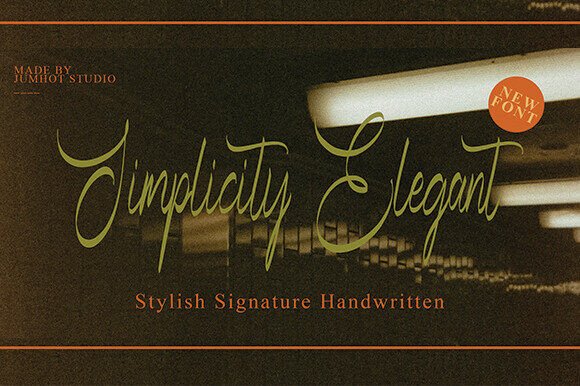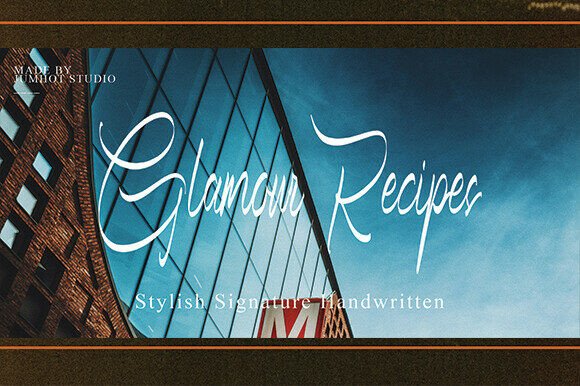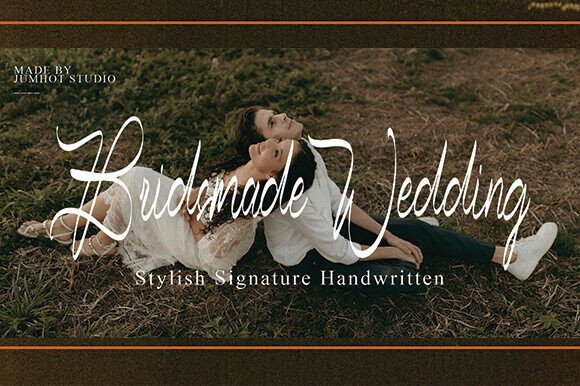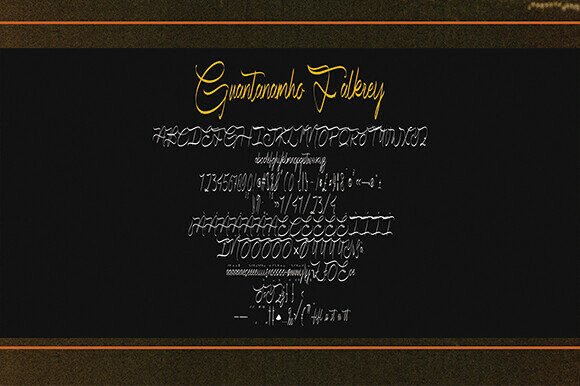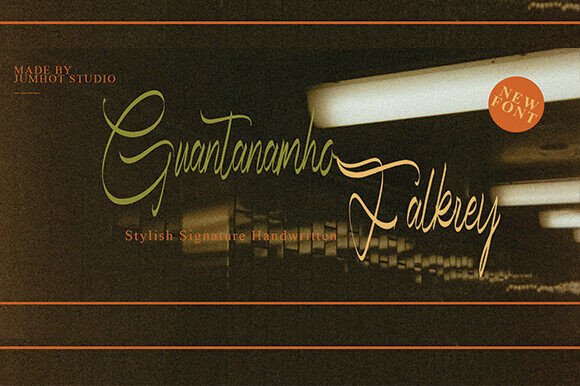
Introducing Guantanamho Falkrey Font: Elevate Your Designs with Elegance and Sophistication
In the world of typography, a well-crafted font can make all the difference in elevating a design from ordinary to extraordinary. Guantanamho Falkrey Font is a stylish script font that embodies the perfect blend of elegance and contemporary charm. With its graceful strokes, fluid curves, and meticulously designed letterforms, this font is sure to capture the hearts of designers and crafters alike.
The Beauty of Hand-Drawn Calligraphy with a Modern Twist
Guantanamho Falkrey Font draws inspiration from the art of hand-drawn calligraphy, but with a modern twist that sets it apart from traditional script fonts. The font’s carefully crafted letterforms showcase a natural flow and polished details that evoke a sense of sophistication and refinement. Whether you’re designing a logo, invitation, packaging, or social media graphics, Guantanamho Falkrey Font is the perfect choice to add a touch of elegance and glamour to your creations.
Key Features of Guantanamho Falkrey Font
- Stylish Script Font: Guantanamho Falkrey Font boasts a stylish script design that exudes elegance and contemporary charm.
- Graceful Strokes and Fluid Curves: The font features smooth, flowing strokes and curves that give it a natural and organic feel.
- Carefully Crafted Letterforms: Each letterform has been meticulously designed to showcase a polished and refined aesthetic.
- Versatile and Visually Appealing: Guantanamho Falkrey Font delivers both versatility and visual appeal, making it perfect for a wide range of design applications.
Design Applications for Guantanamho Falkrey Font
Guantanamho Falkrey Font is an incredibly versatile font that can be used in a variety of design applications, including:
- Logos: Create a lasting impression with a custom logo that showcases the elegance and sophistication of Guantanamho Falkrey Font.
- Invitations: Add a touch of refinement and glamour to your invitations, whether it’s for a wedding, birthday party, or corporate event.
- Packaging: Elevate your brand’s packaging design with Guantanamho Falkrey Font, perfect for product labels, packaging inserts, and more.
- Social Media Graphics: Create stunning social media graphics that showcase your brand’s personality and style with Guantanamho Falkrey Font.
Why Choose Guantanamho Falkrey Font?
With so many fonts available, why choose Guantanamho Falkrey Font? Here are just a few reasons why designers and crafters are falling in love with this stylish script font:
- Unique and Distinctive: Guantanamho Falkrey Font offers a unique and distinctive look that sets it apart from other script fonts.
- Elegant and Sophisticated: The font’s elegant and sophisticated design makes it perfect for high-end brands and designs.
- Easy to Read: Despite its ornate design, Guantanamho Falkrey Font is easy to read, making it perfect for body text and headlines.
- Highly Versatile: The font’s versatility makes it suitable for a wide range of design applications, from logos to social media graphics.
In conclusion, Guantanamho Falkrey Font is a stylish script font that embodies the perfect blend of elegance and contemporary charm. With its graceful strokes, fluid curves, and meticulously designed letterforms, this font is sure to elevate your designs to new heights. Whether you’re a designer, crafter, or simply someone who appreciates beautiful typography, Guantanamho Falkrey Font is a must-have addition to your font collection.